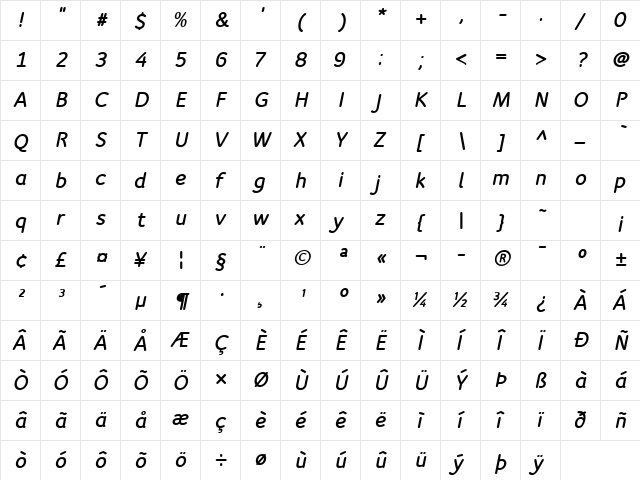
SpeakTF-HeavyItalic Regular
| Designer | Jan Maack |
Design Context for SpeakTF-HeavyItalic Typeface
SpeakTF-HeavyItalic takes a measured approach to typography — its balanced proportions and neutral character make it a reliable workhorse for both digital and print work. The dynamic lean of this cut emphasises speed and emphasis in any layout.
Pro Tip: Use SpeakTF-HeavyItalic for emphasis, pull quotes, and subheadings where its slanted energy can add rhythm to the layout.